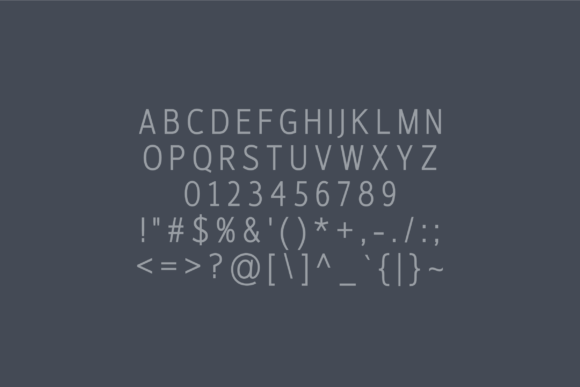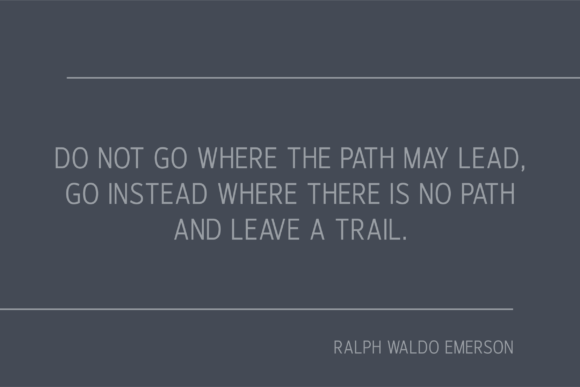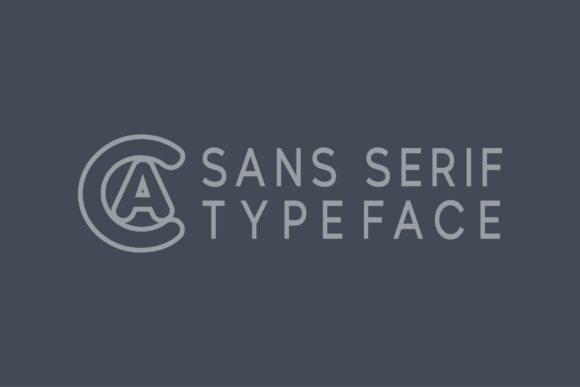
Introduction to Pyrithon Font
Introducing Pyrithon, a distinctly contemporary sans serif typeface.
Pyrithon boasts sophisticated character, seamlessly blending an upper character set, digits 0-9, and an assortment of punctuation marks and symbols This typeface strides past the conventional, offering exceptional versatility and a chic aesthetic.
Key Features of Pyrithon Font